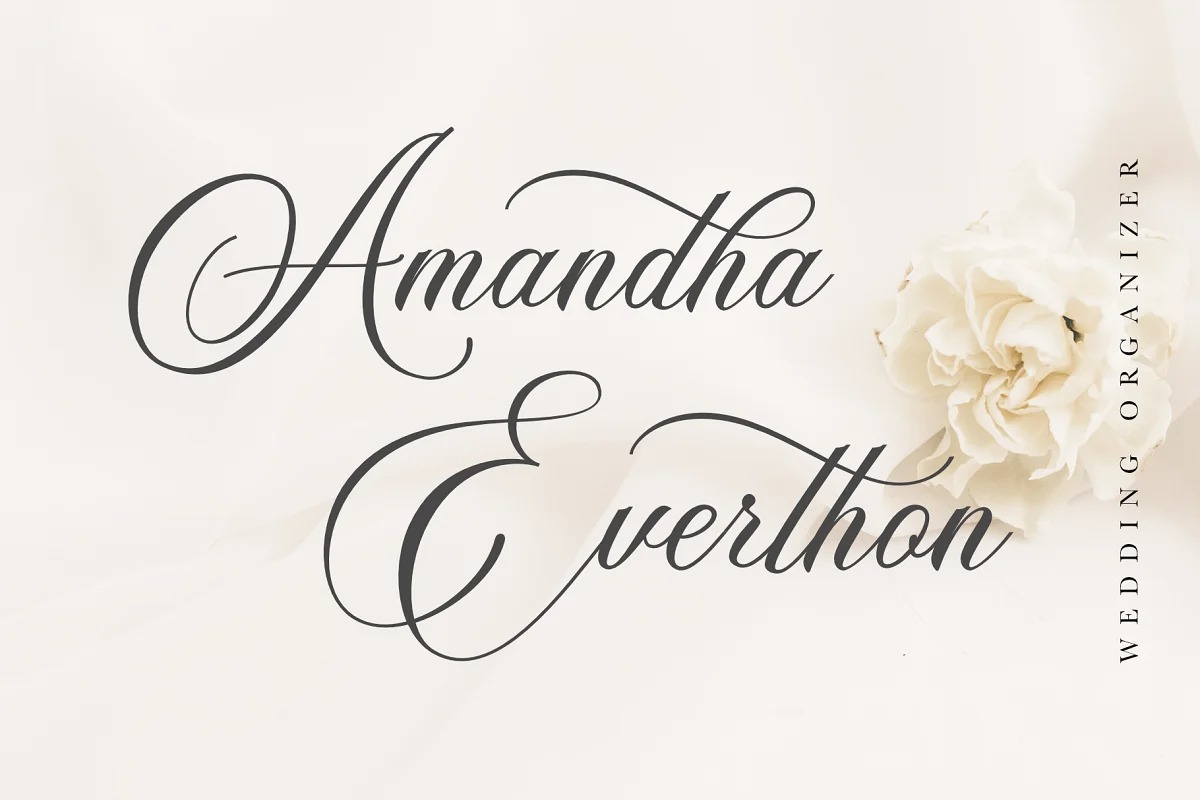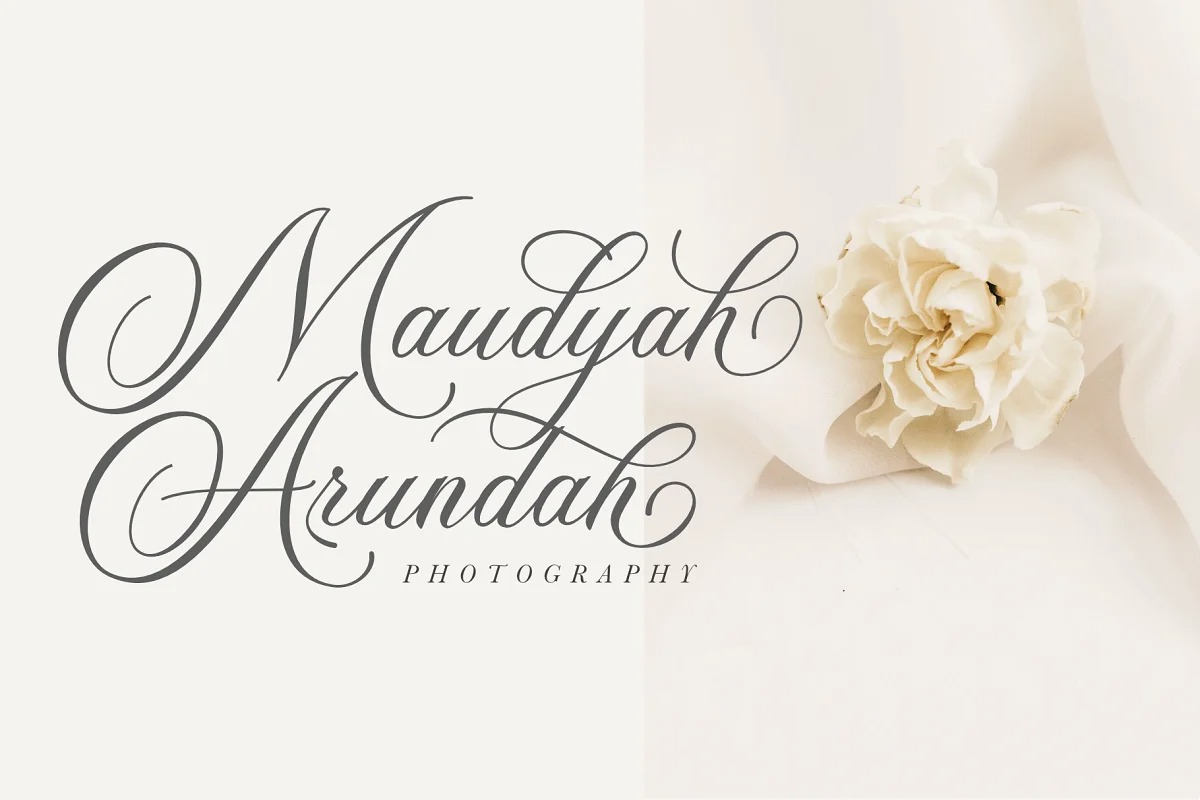
Alexandra Calligraphy Font
This is a modern & luxury calligraphy typeface. It will add a luxury spark to any design project that you wish to create! It’s designed and shared by Silverdav. Alexandra Calligraphy is very well made, with very neat strokes that add a luxurious impression, there are many lowercase Alternate letters that you can use to enhance your design, this is really charming, please try it yourself.
Alexandra Calligraphy is perfect for Branding, Logos, Wedding Invitations, Quotes, Magazines, and many more.